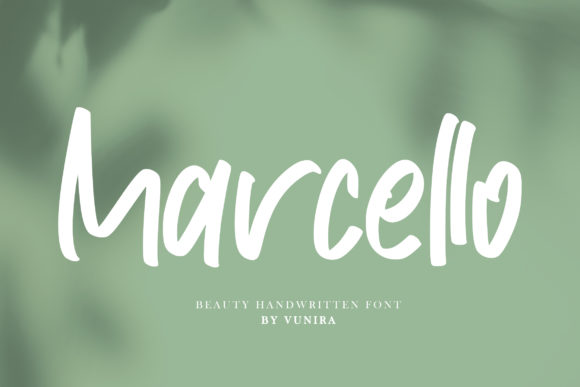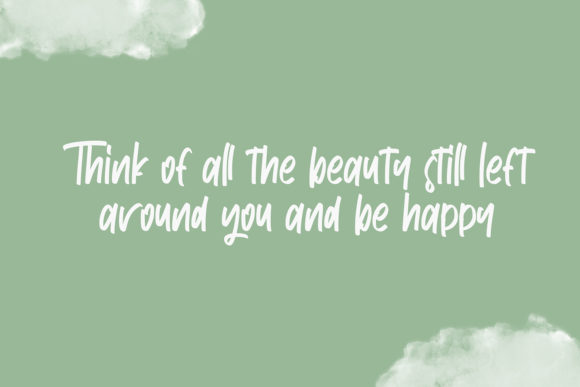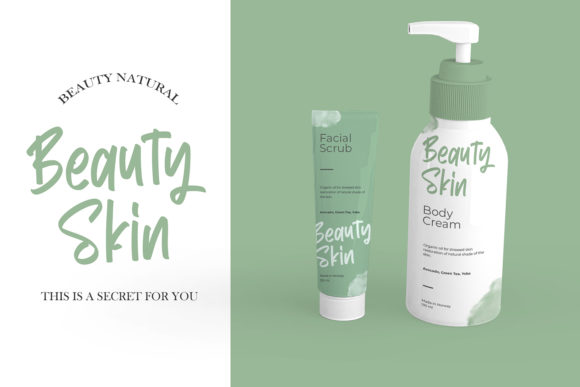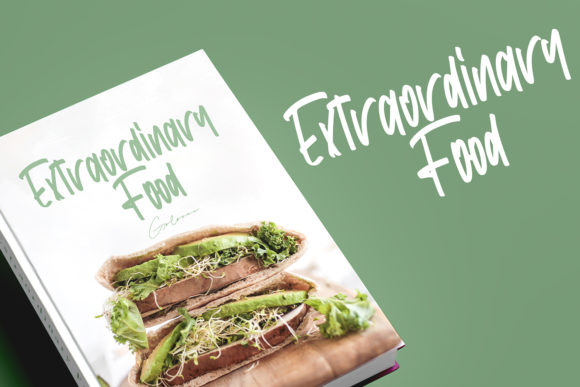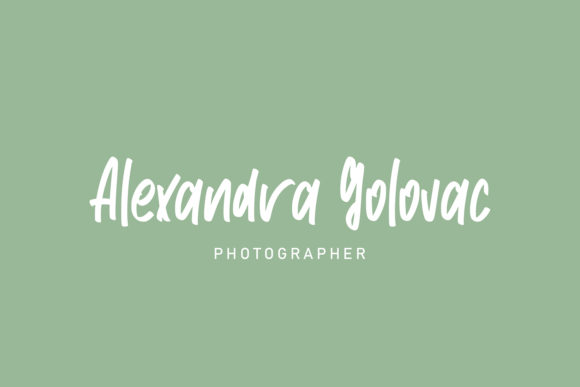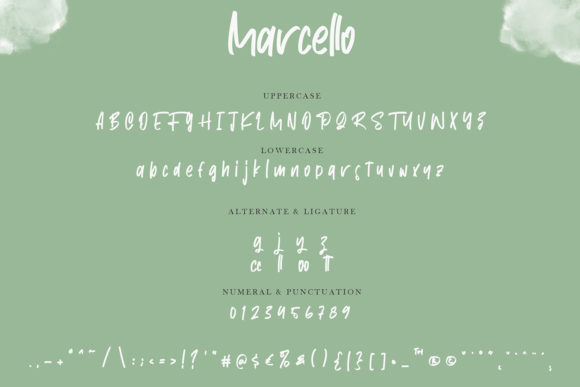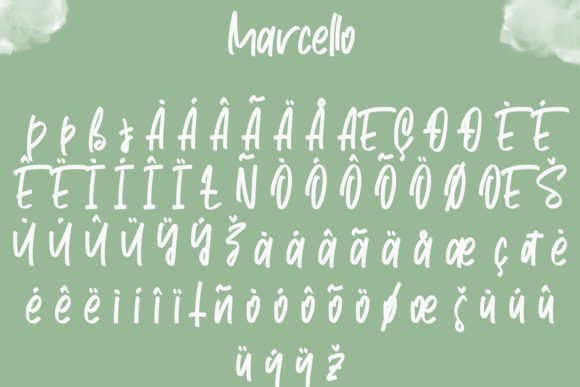
Marcello Font
About Marcello Font
Marcello is a timeless and friendly handwritten font, created by using a brush pen. Clean and a little bit quirky, this font is the perfect fit for all of your logos, branding, social media, and crafty DIY projects.